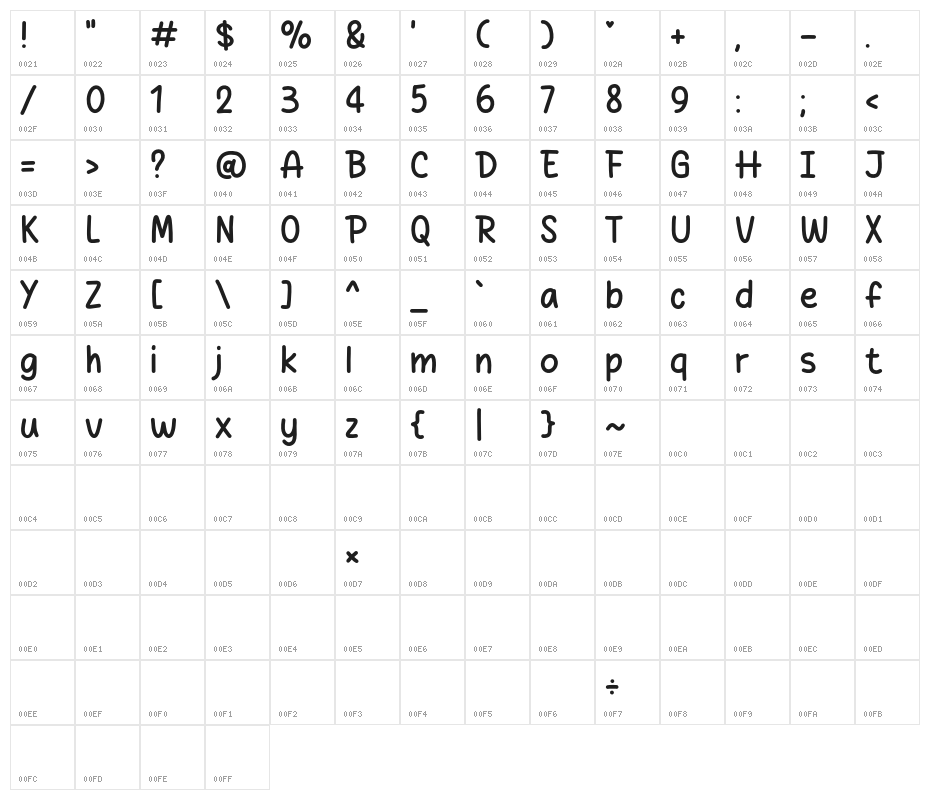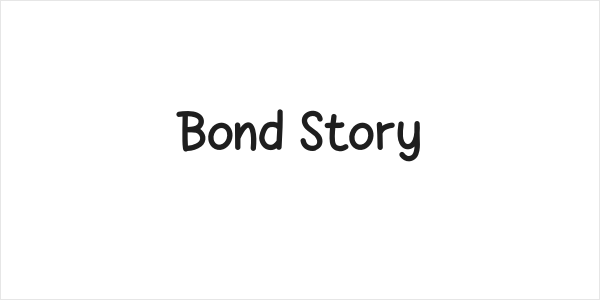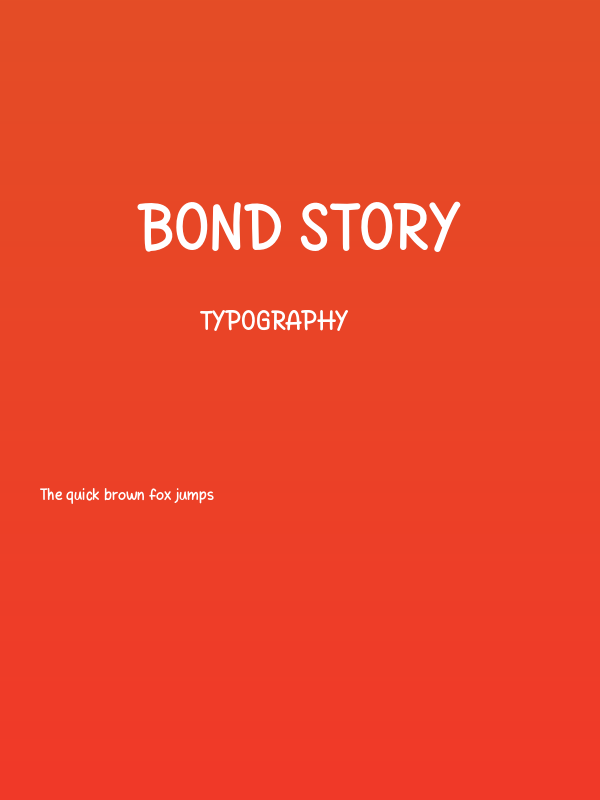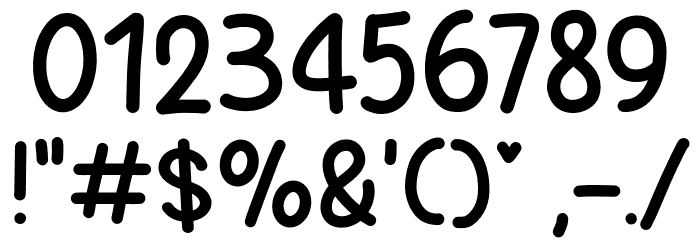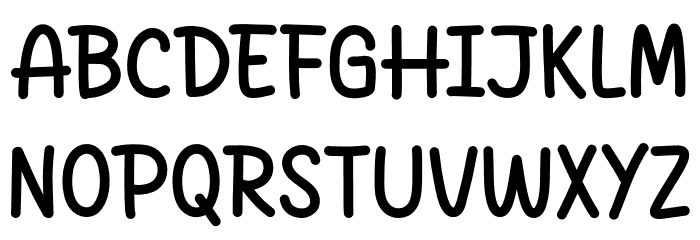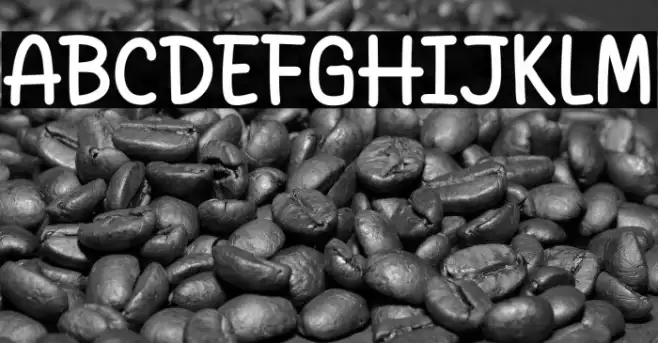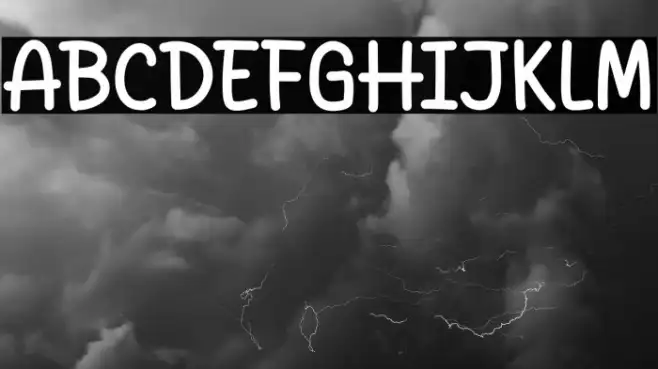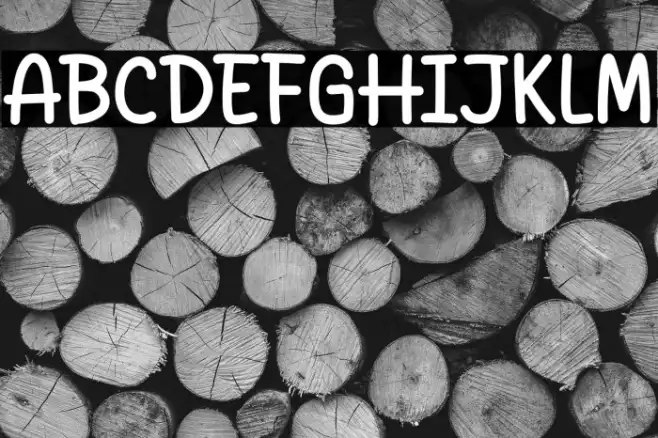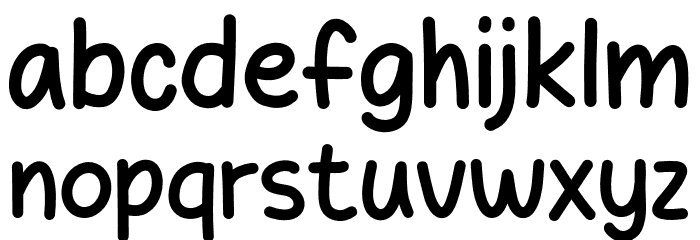
Bond Story Font
Bond Story Description
This font features a playful and casual handwritten style, characterized by its rounded edges and slightly irregular letterforms. The uppercase and lowercase letters maintain a consistent flow, giving it a friendly and approachable appearance. The numerals and special characters are designed to match the overall aesthetic, ensuring a cohesive look across all text elements. Its informal style makes it suitable for projects that require a personal touch or a relaxed vibe.
| Use Case | Headlines, Informal text, Branding |
| Proposed Projects | Ideal for children's books, greeting cards, informal invitations, and playful branding. |